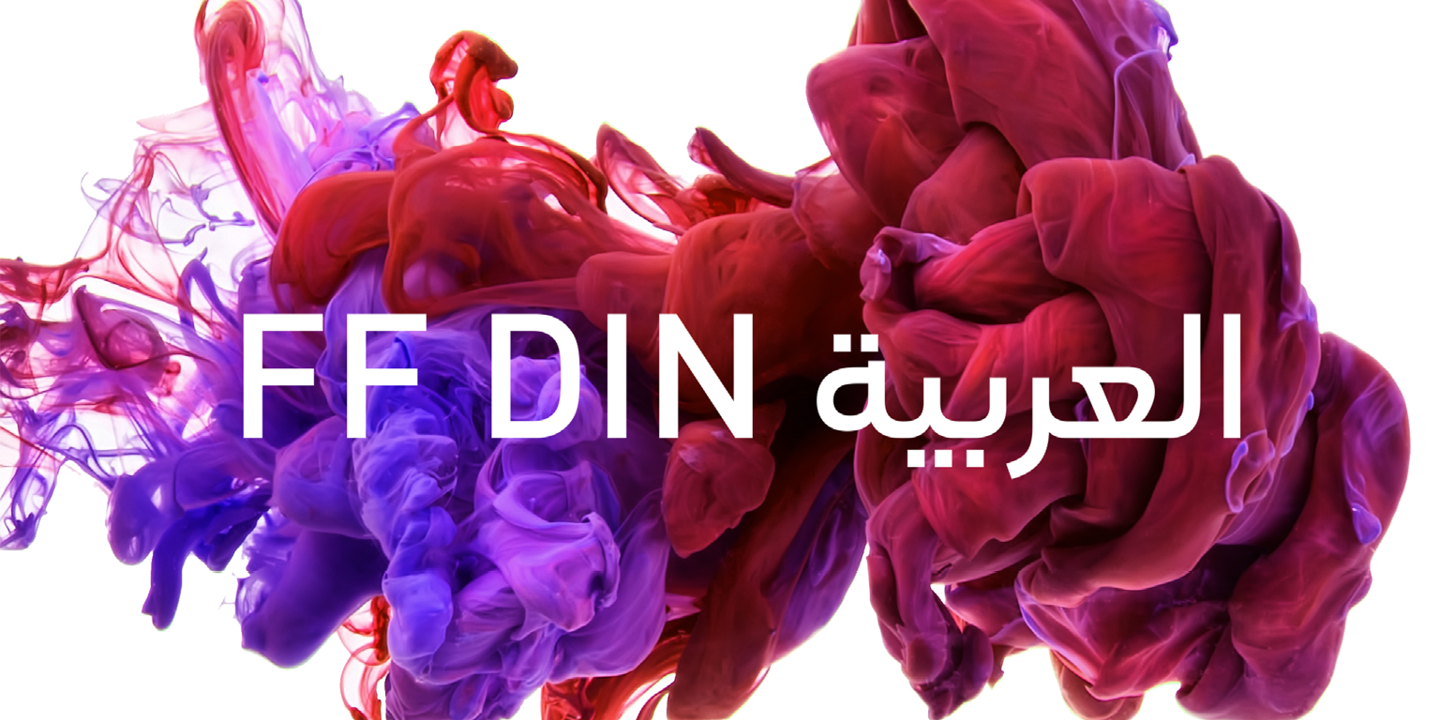
FF DIN Arabic Font is a groundbreaking and highly functional typeface, specifically designed to extend the renowned clarity and versatility of the classic FF DIN into the Arabic script. Its meticulous design harmonizes the geometric precision and industrial strength of DIN with the flowing elegance of Arabic calligraphy, resulting in exceptional readability and a modern aesthetic. This makes it an excellent choice for corporate branding in the Middle East, multilingual publications, wayfinding and signage systems, and digital interfaces for Arabic speakers. Imagine it providing clear and accessible text for a major Middle Eastern airline's branding, lending a professional and contemporary feel to government documents in Arabic, or ensuring impeccable clarity for web content and mobile applications targeting Arabic-speaking audiences. This font is also superb for advertising campaigns, packaging design, and any project where universal appeal, professionalism, and a harmonious visual identity across both Latin and Arabic scripts are paramount. It doesn't just display text; it bridges cultures with typographic excellence.
What makes FF DIN Arabic Font so exciting is its intelligent and sensitive adaptation of a Western typographic classic to the unique complexities and aesthetic demands of the Arabic script. It successfully translates DIN's characteristic directness and legibility without compromising the inherent beauty and cursiveness of Arabic. This achievement is crucial for brands and organizations operating globally, allowing them to maintain a consistent visual identity across different language regions. It’s a font that speaks with a clear, authoritative voice in both scripts, making it ideal for brands and content creators who want to convey trustworthiness, innovation, and a sophisticated, straightforward aesthetic to a vast international audience. Its comprehensive character set supports all necessary Arabic ligatures and forms for seamless readability.
The FF DIN Arabic Font family typically offers a comprehensive range of weights to provide extensive design flexibility and allow for nuanced typographic expressions, consistent with its Latin counterpart. You can generally expect to find key members that support diverse layout needs, such as:
FF DIN Arabic Light
FF DIN Arabic Regular
FF DIN Arabic Medium
FF DIN Arabic Bold
FF DIN Arabic Black
These various weights empower designers to create effective visual hierarchies, emphasize important information, and maintain a consistent, polished, and highly professional look throughout all digital and print assets, especially when used in conjunction with its Latin counterpart. The opportunity to utilize FF DIN Arabic Font Free Download is an excellent way to experience its versatile elegance and modern appeal for your personal projects.